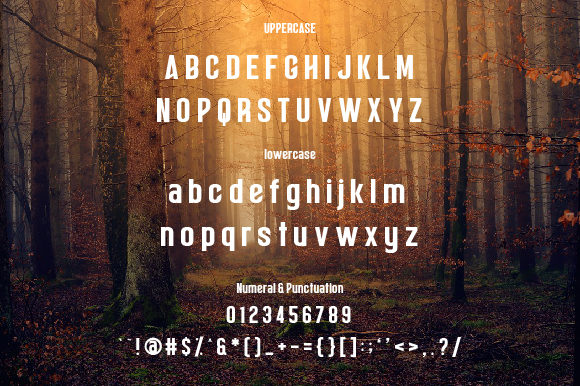
The Birth of a Beautiful Design
Have you ever sat in front of a blank page, staring at your computer screen, trying to bring a creative idea to life? The blank slate can be both inspiring and intimidating, but it’s in these moments that true design magic happens. For designers, finding the perfect font can be the spark that sets the entire project ablaze. And that’s exactly what the Genthing Font aims to do.
With its simple and minimalist aesthetic, the Genthing Font is the perfect addition to any design project. Available in regular and italic styles, it’s ideal for name cards, posters, logos, magazines, covers, banners, and large-scale artwork. Whether you’re a seasoned designer or just starting out, the Genthing Font is a valuable tool that will help you create stunning visuals that leave a lasting impression.
Genthing Font Key Features
- Font Family: Genthing Font is a sans-serif font family, ideal for digital and print media.
- Size and Resolution: The font family includes a wide range of weights and styles, from 100 to 900, with 10 different weights and 5 different styles, supporting a resolution of 300 DPI and above.
- Unique Characteristics: Genthing Font features a unique, geometric design with clean lines and precise shapes, making it suitable for modern and minimalist designs.
- Language Support: The font family supports a wide range of languages, including Latin, Cyrillic, and Greek scripts.
Genthing Font Review
I recently had the chance to work with the Genthing font, and I must say it’s a fascinating addition to any design project. ✨ The font’s unique blend of modern and vintage elements makes it perfect for creating visually appealing and eye-catching designs.
- One of the standout features of the Genthing font is its versatility. It can be used in a variety of contexts, from titles and headings to body text and even logos.
- Another aspect that works well is the font’s readability. Despite its unique design, it’s surprisingly easy to read, even at smaller font sizes.
However, there are some limitations to consider. ⚠️ The font may not be suitable for projects that require a more straightforward or minimalist approach, as its unique design can be overwhelming in certain contexts.
Overall, I’m impressed with the Genthing font, and I think it can be a valuable addition to any designer’s toolkit. With its unique blend of modern and vintage elements, it’s sure to add a touch of personality to any project.
Alternatives to Genthing Font for Designers
Playfair Display is a high-end serif font that adds elegance to any design. It is ideal for use in headlines, titles, and other situations where a touch of sophistication is needed.
Compared to Genthing Font, Playfair Display has a more refined and classic look. While Genthing Font has a modern and minimalist feel, Playfair Display is more ornate and decorative.
Lato is a sans-serif font that is highly versatile and suitable for a wide range of applications, from body text to headings. It is ideal for use in digital design, such as websites and mobile apps.
Lato is more modern and clean than Genthing Font, making it a great choice for designers who want a font that is easy to read and visually appealing. However, Lato lacks the unique character of Genthing Font.